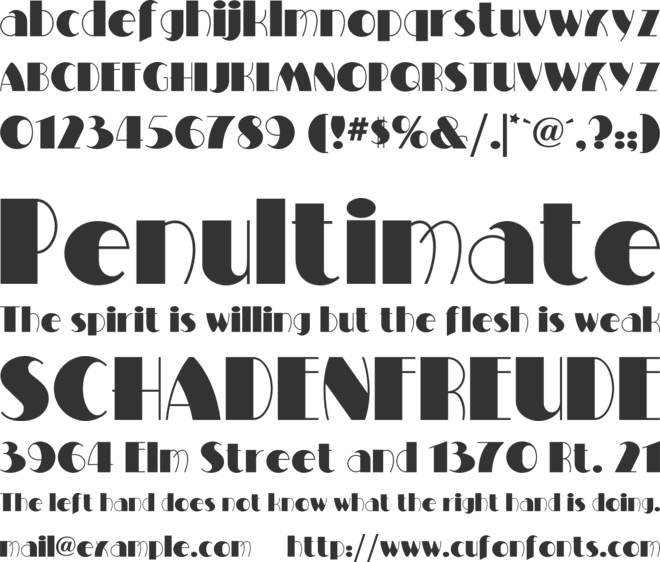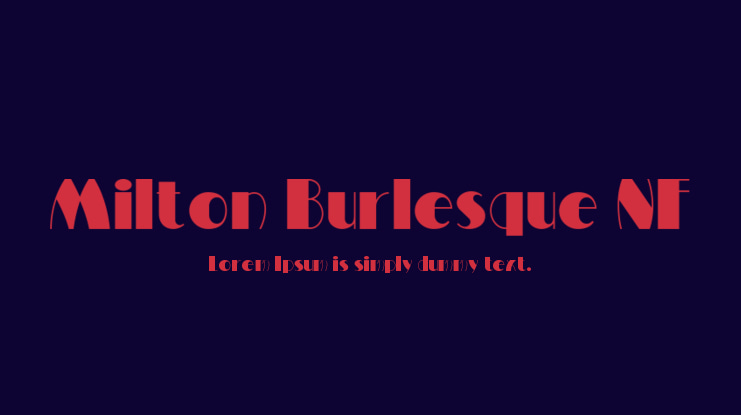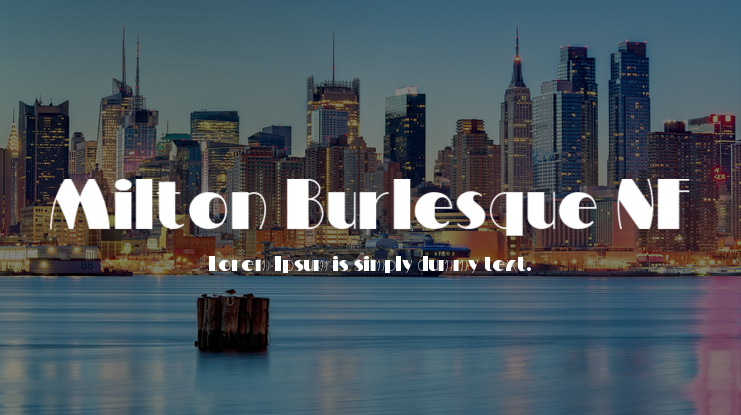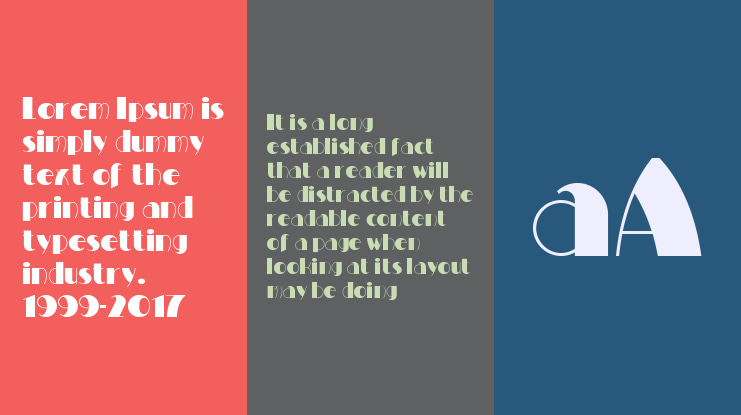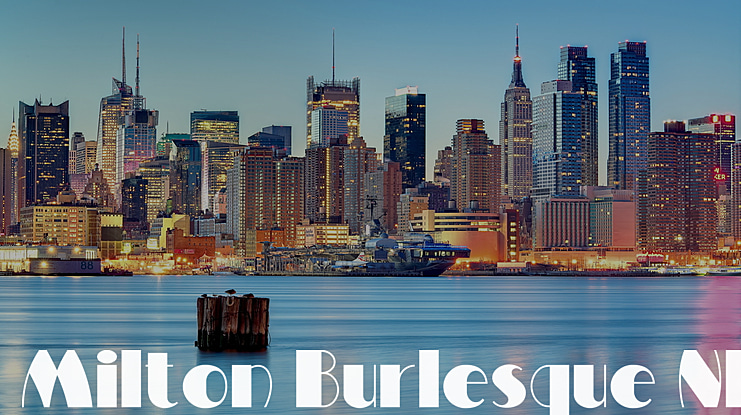
Milton Burlesque NF Font
Hereâs another unnamed, uncredited gem from the book Art Deco Initials, somewhat similar to my Conga Line, but in many ways completely different. The font gets its rather clever name from Eric Perlin, who suggested it in a âName That Fontâ segment at the, sadly, now-defunct TrueType Resource website. Rollicking fun.